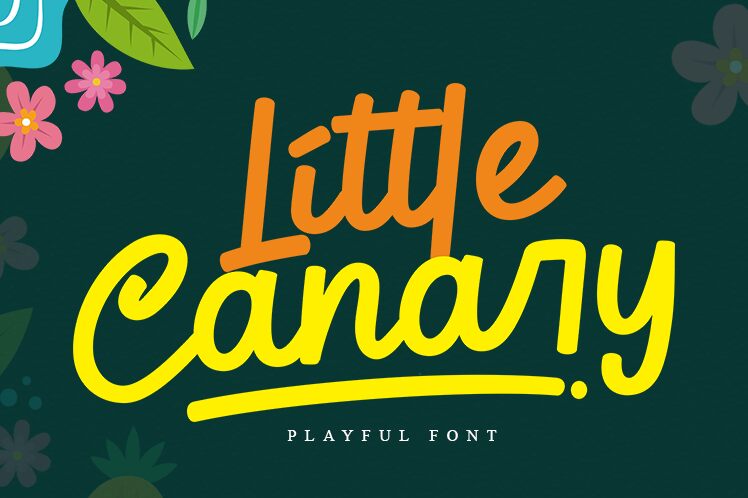
Little Canary, designed by Four Lines, is the perfect playful script font for your next creative project. With its semi-light weight and whimsical style, it adds a touch of fun to any design. From children's books to wedding invitations, this font is versatile and eye-catching. Use it for logos, branding materials or even social media graphics - the possibilities are endless! Its flowing curves and charming characters make it a great choice for anything that needs a bit of personality injected into it. Give your designs a lift with Little Canary - the perfect choice for any project that needs a playful touch.